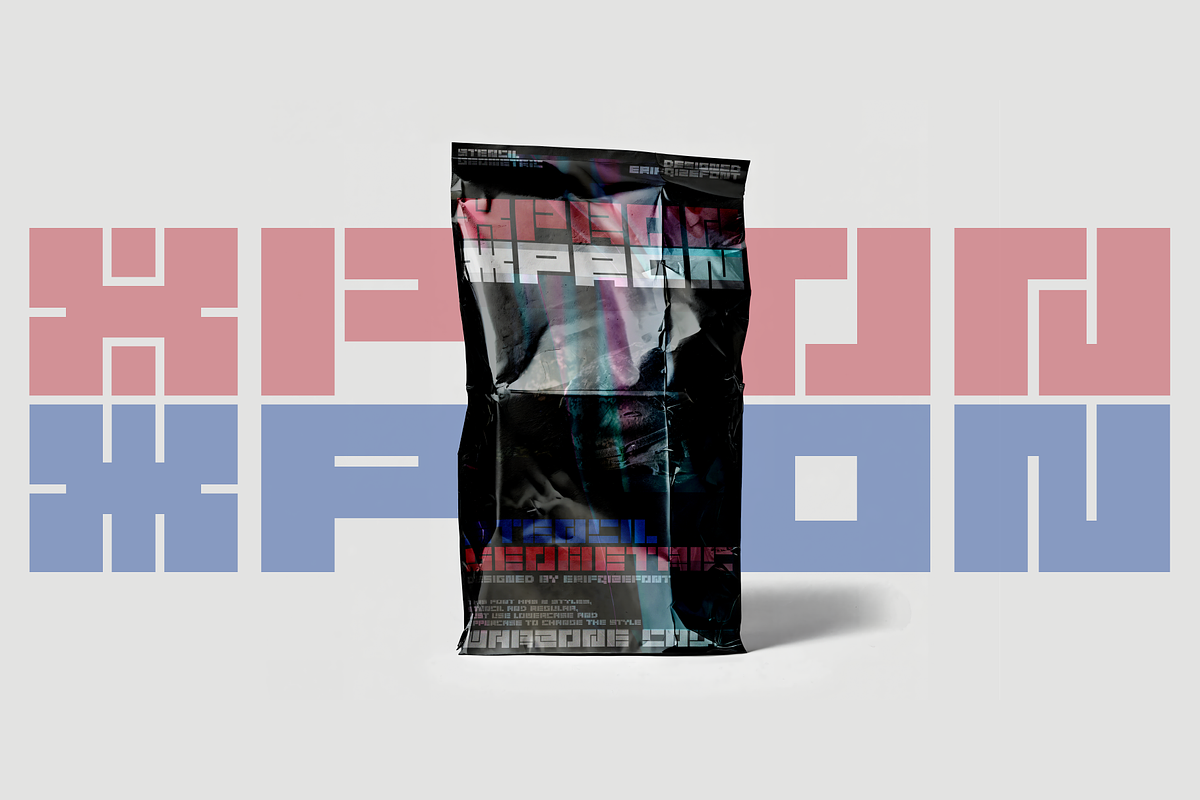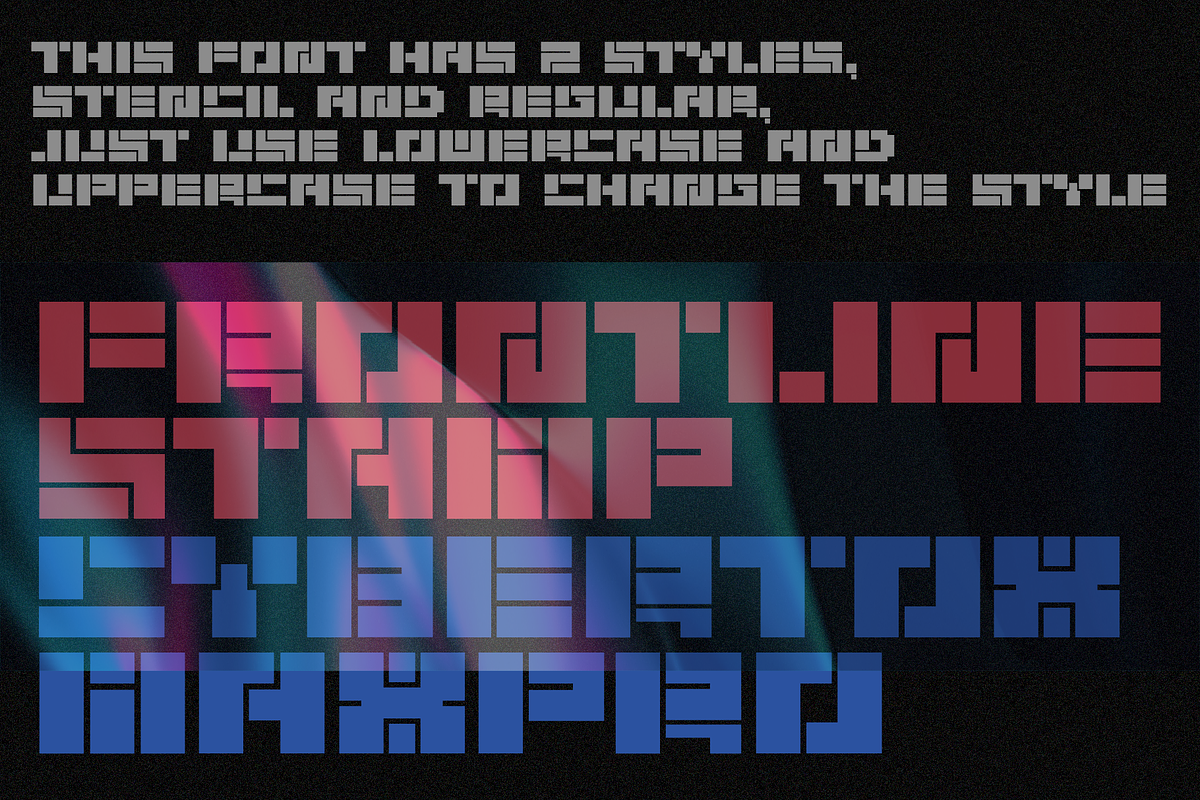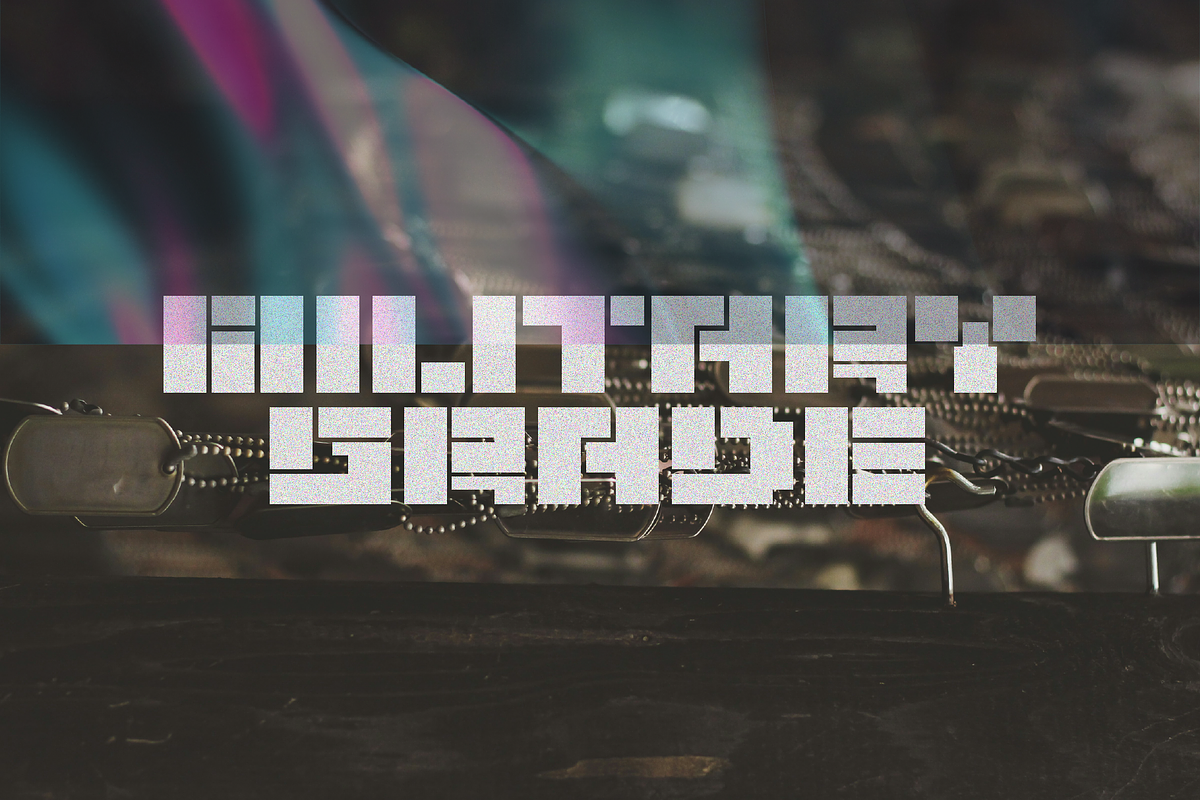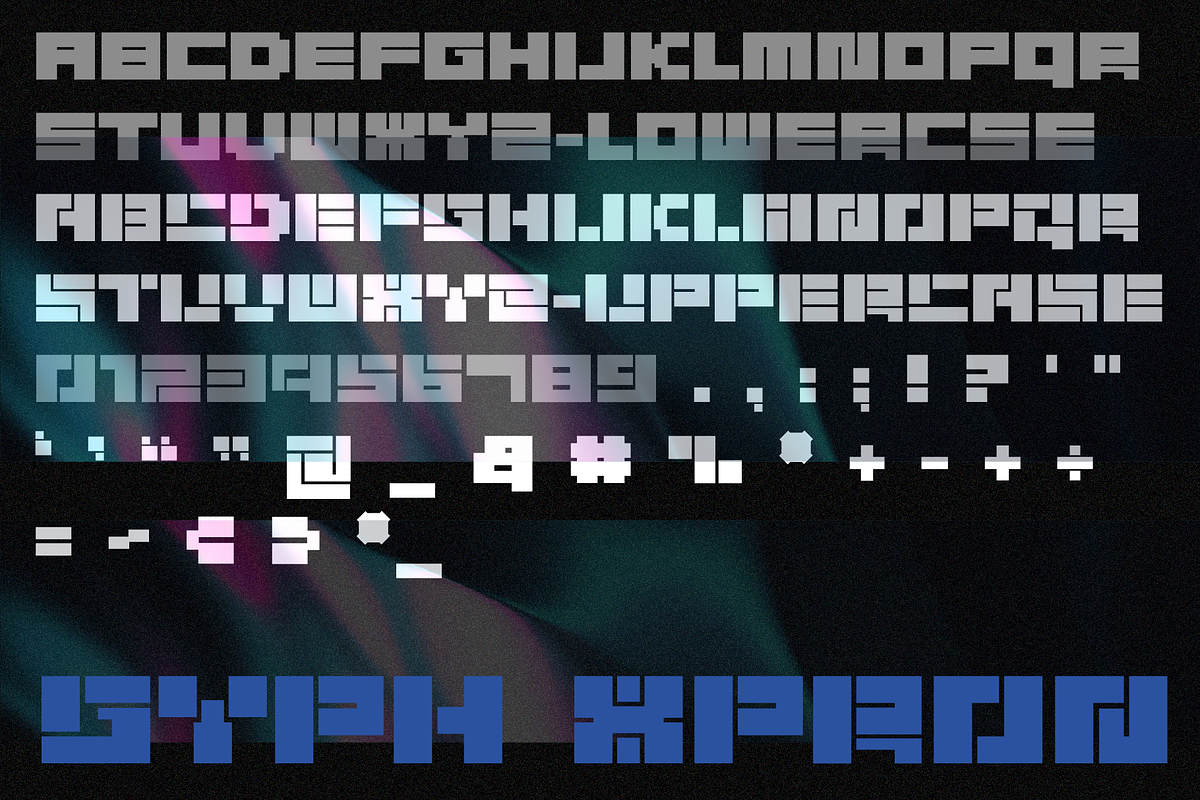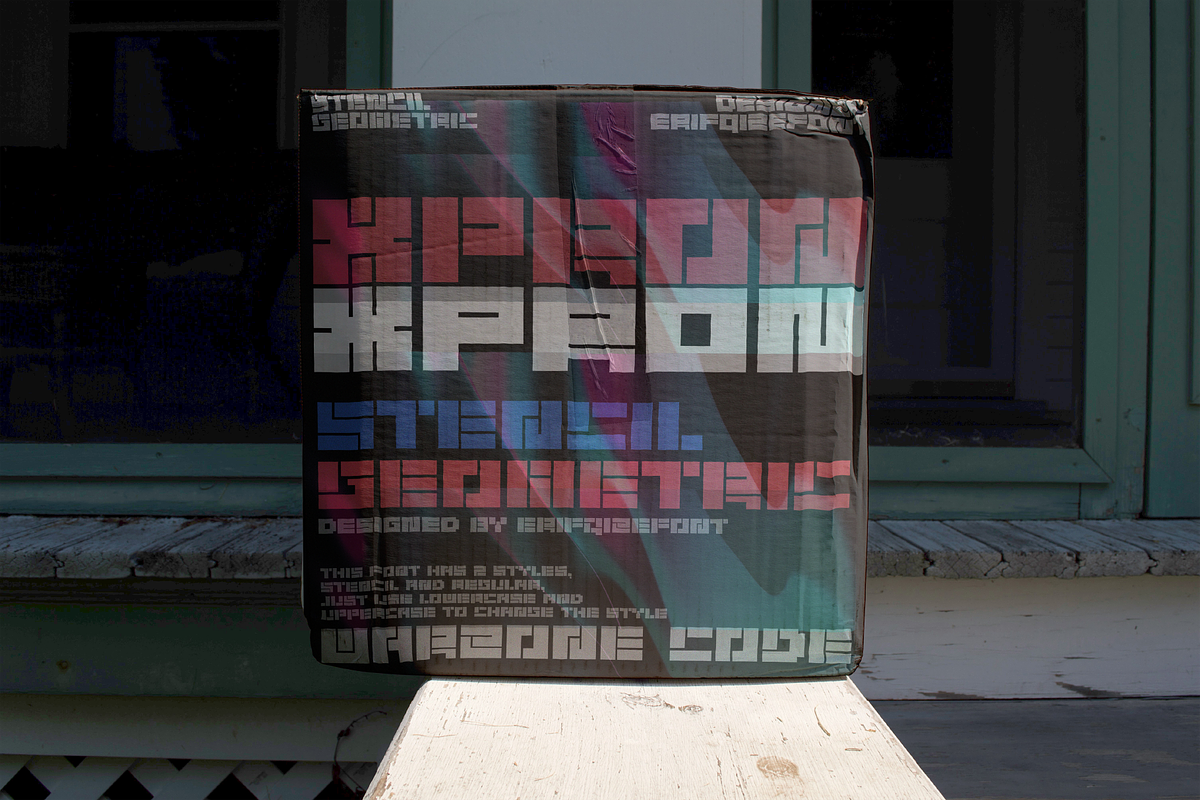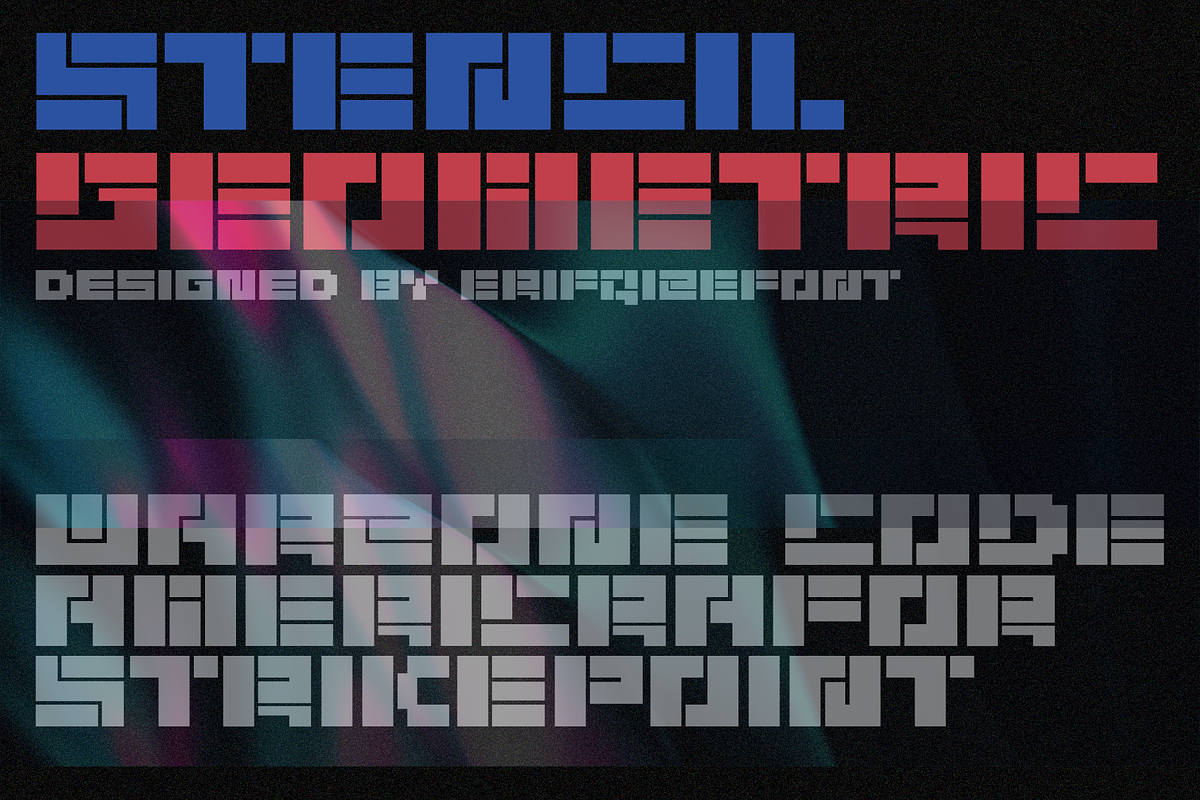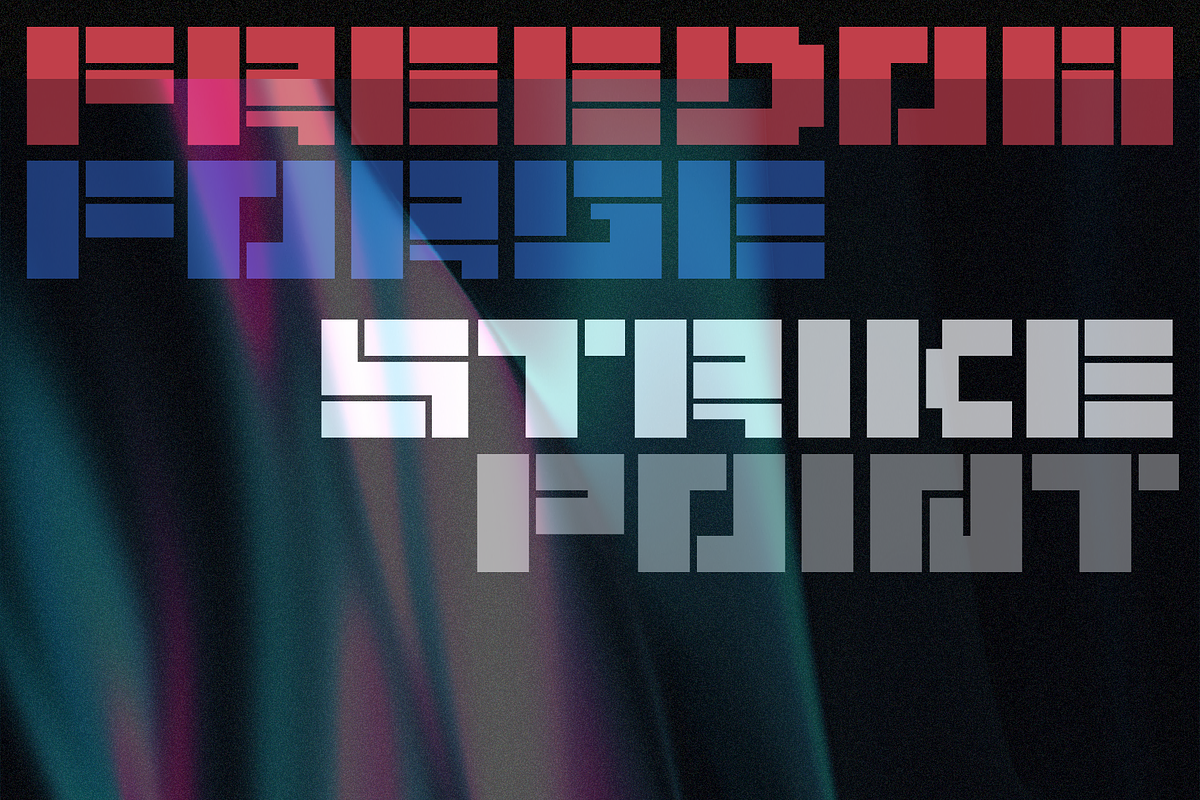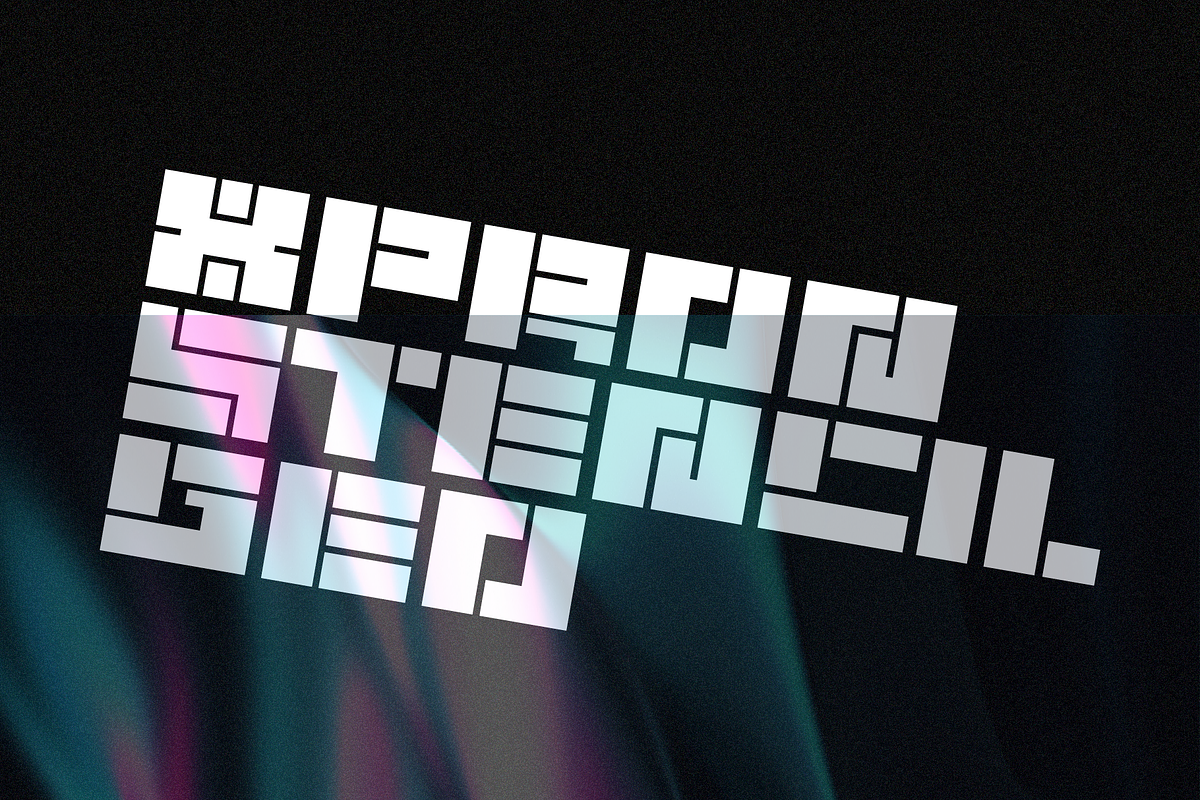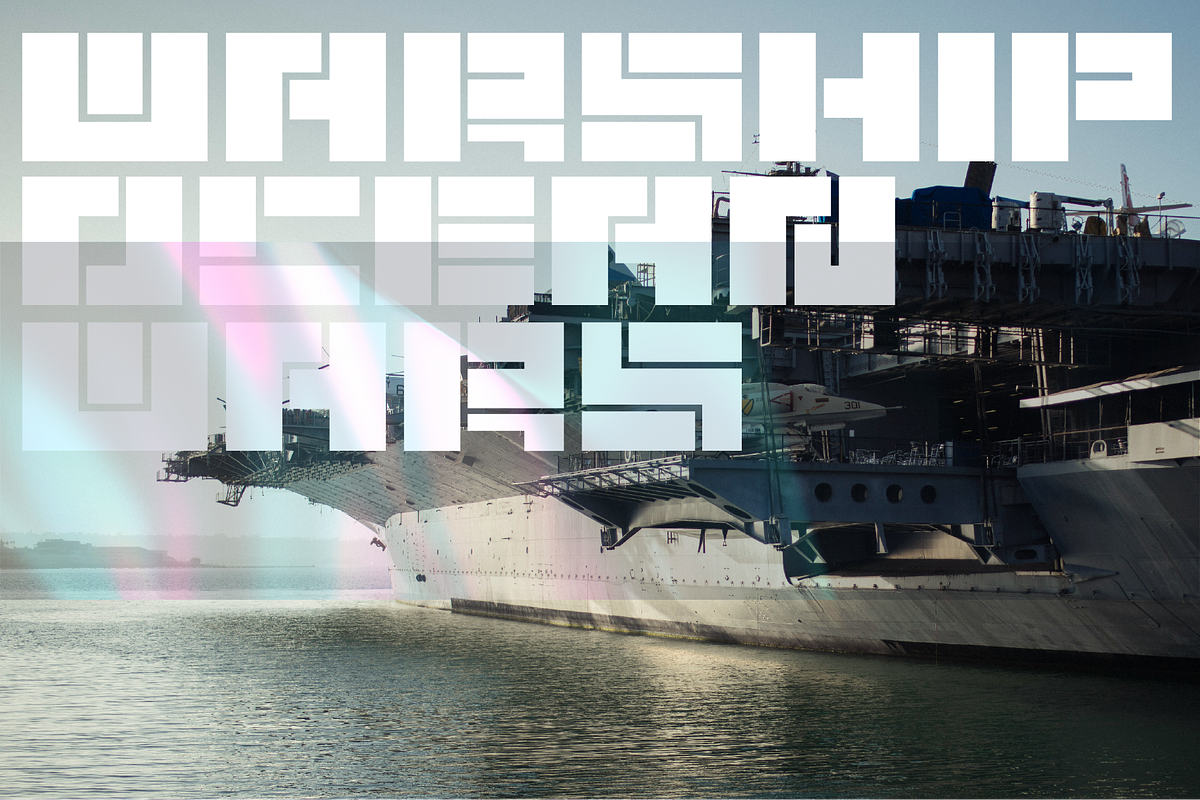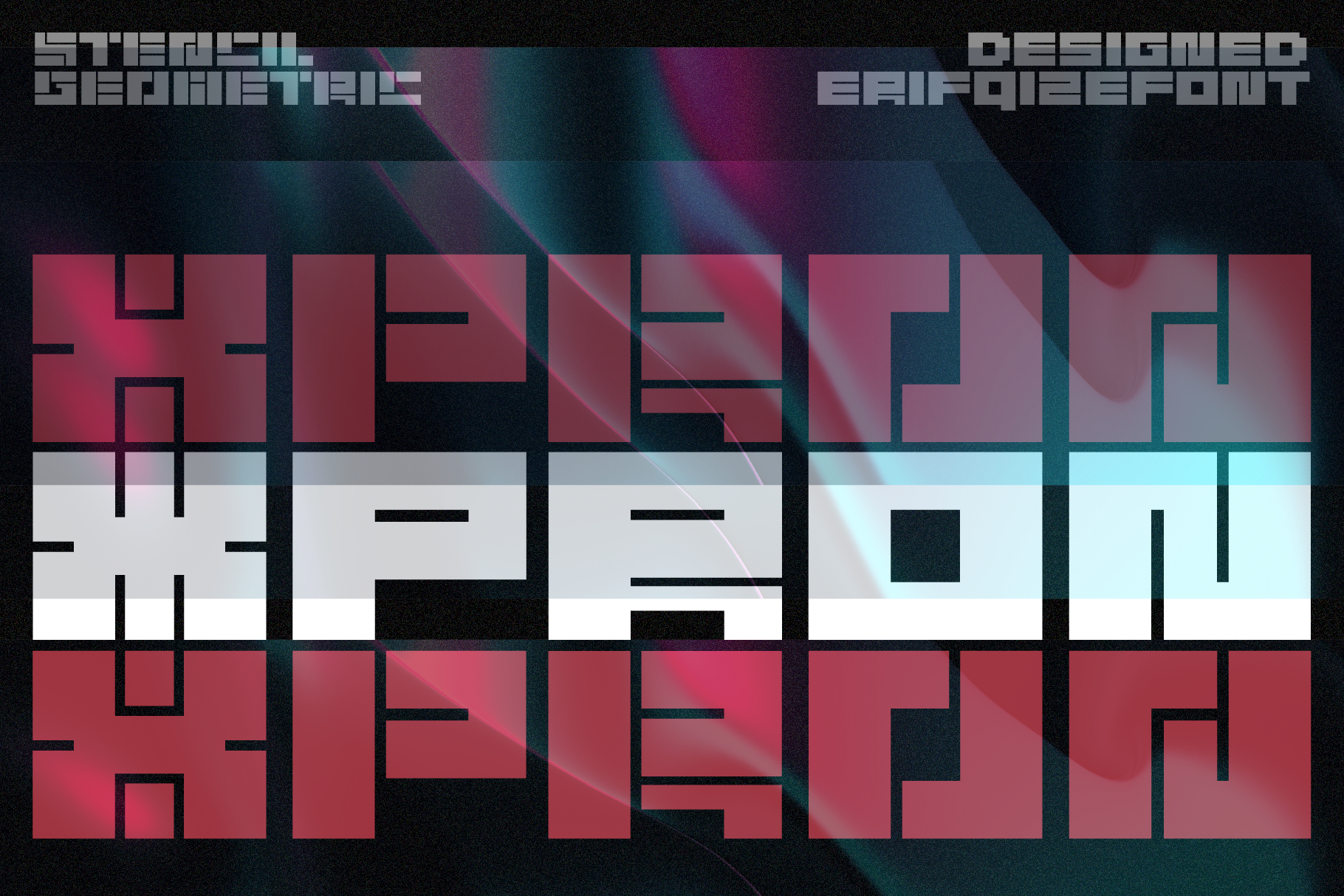
Xpron STENCIL Geo Font
XPRON STENCIL GEO – Futuristic Stencil Meets Geometric Precision Xpron Stencil Geo is an experimental display typeface that merges the boldness of futuristic stencil forms with the clarity of geometric construction. Designed for projects that demand a strong, industrial, and modern presence.
This typeface offers two contrasting styles in one system:
Uppercase features a sharp, modular stencil design—perfect for sci-fi, tech, military, and dystopian aesthetics.
Lowercase delivers a clean, standard geometric look, ideal for supporting text, subheadings, or UI elements.
🔧 Features: Bold uppercase in futuristic stencil style
Clean lowercase with geometric structure
Ideal for posters, album covers, branding, streetwear, gaming UI, cyberpunk themes, and more
Original design by Erifqizefont
Xpron Stencil Geo isn’t just a font—it’s a visual statement. Strong. Experimental. Electric.